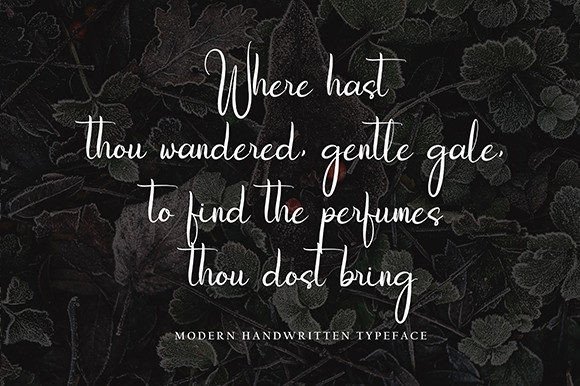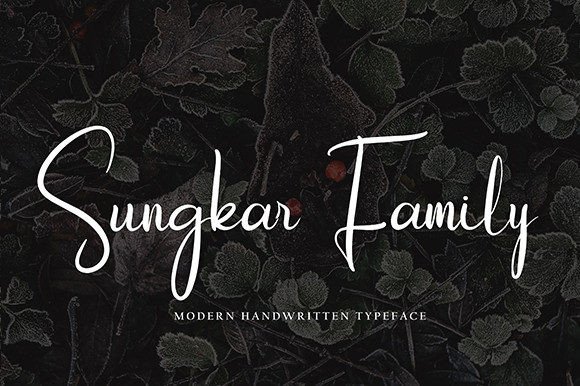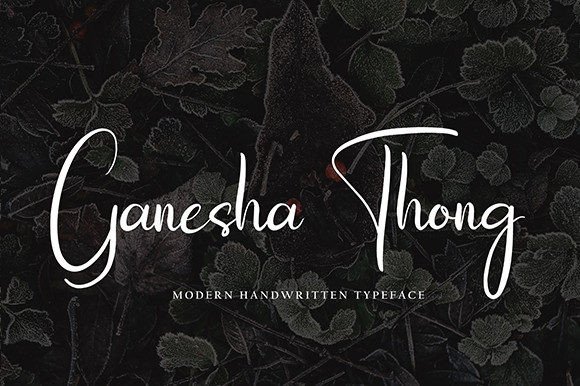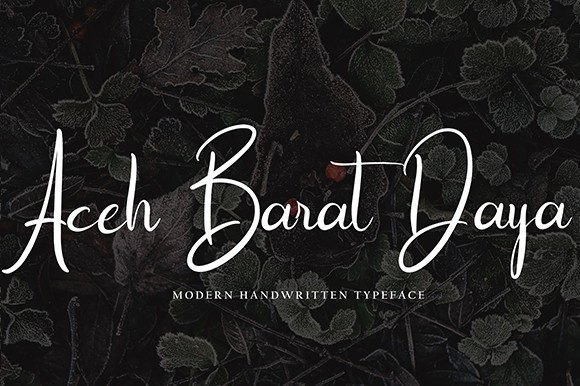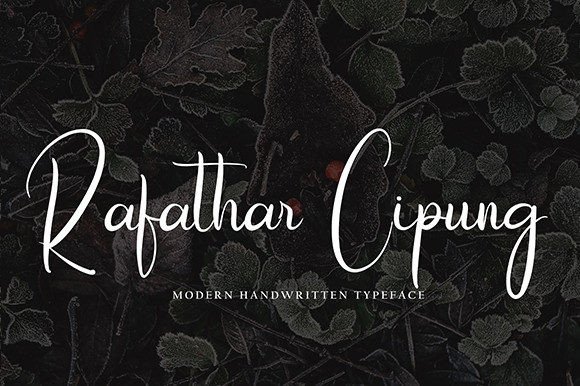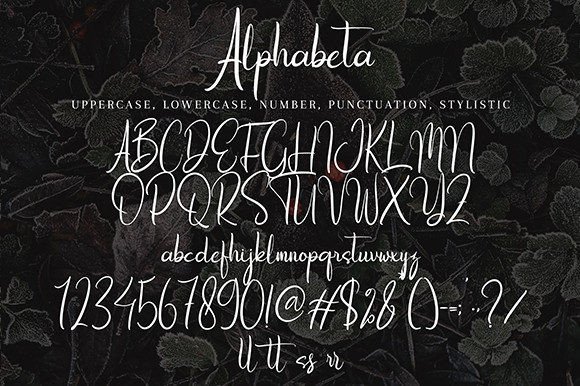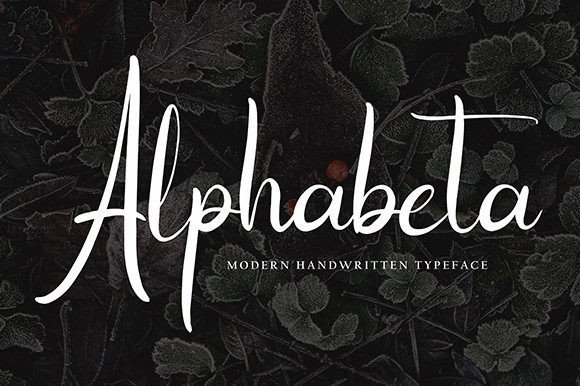
The Perfect Brush Stroke: Unlocking the Magic of Alphabeta Font
Have you ever found yourself stuck in a creative rut, staring blankly at a blank page, waiting for inspiration to strike? We’ve all been there – the cursor blinks, the mind goes blank, and the clock ticks away. But what if you had the perfect tool to spark that creative spark?
Enter Alphabeta Font, a modern handwritten typeface that’s designed to add a touch of elegance and sophistication to any design project. Whether you’re creating quotes, logos, blog headers, or posters, this lovely font is the perfect addition to your design arsenal. For designers, Alphabeta Font offers a valuable resource for adding a personal touch to their work, setting them apart from the rest and making their designs truly unforgettable.
• Unique Characteristics: Alphabeta Font is designed to mimic the look of handwritten text, with distinctive letterforms and flourishes that give it a personal and elegant feel.
Designer Review: Alphabeta Font
Overall, I was quite excited to dive into Alphabeta Font and see what it has to offer. Here are my honest thoughts:
• ✨ Elegant and refined aesthetic: Alphabeta Font’s sleek lines and precise curves give it a high-end feel that’s perfect for luxury brands and modern designs.
• ✨ Wide range of weights: The font comes in 10 different weights, allowing for a great deal of flexibility and versatility in your design projects.
• ✨ Excellent legibility: Even at small sizes, Alphabeta Font remains easy to read, making it a great choice for body text and headings.
• ⚠️ Limited character set: While the font is well-suited for Latin-based languages, it may not be the best choice for languages that require a wider character set, such as Cyrillic or Arabic.
• ⚠️ Not suitable for informal designs: Alphabeta Font’s sleek and refined aesthetic may not be the best fit for casual or playful designs.
Alphabeta Font is a solid choice for designers who need a high-end font with a wide range of weights and excellent legibility. However, it may not be the best fit for every project, and designers should carefully consider its limitations before choosing it for their designs.
Tips for Getting the Most Out of Alphabeta Font
To get the most out of Alphabeta font, try the following:
• Use Alphabeta font for headings and titles to add a touch of elegance.
• Pair Alphabeta font with a sans-serif font for body text to create a balanced look.
• Experiment with different font sizes and colors to create visual interest.